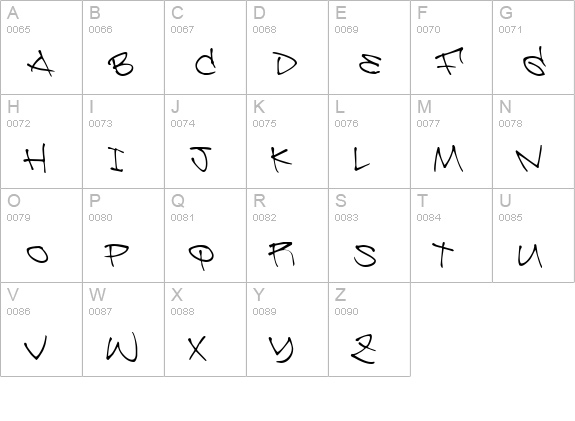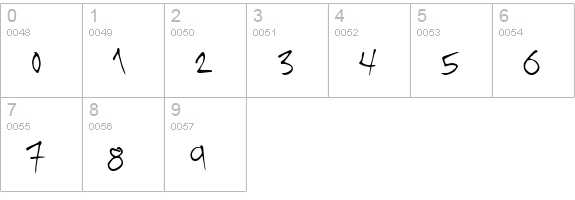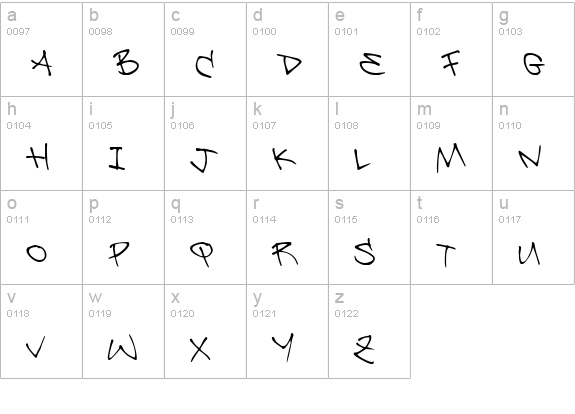
Be Aggressive Font Details
Introducing Be Aggressive font, a bold and powerful typeface that commands attention with its sharp edges and strong presence. This modern display font is perfect for making a statement and adding a touch of edginess to your designs. With its aggressive yet stylish look, Be Aggressive is ideal for branding, headlines, posters, and more. What sets Be Aggressive font apart is not just its striking design, but also the fact that it is available for free download at FontsMarket.com. Now you can elevate your projects with this eye-catching font without breaking the bank. Don't miss out on the opportunity to add Be Aggressive to your font collection and unleash your creativity with its bold and dynamic style. Download it now and make a statement with every word you write.